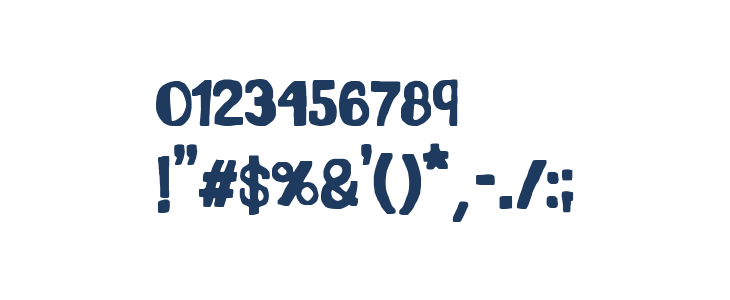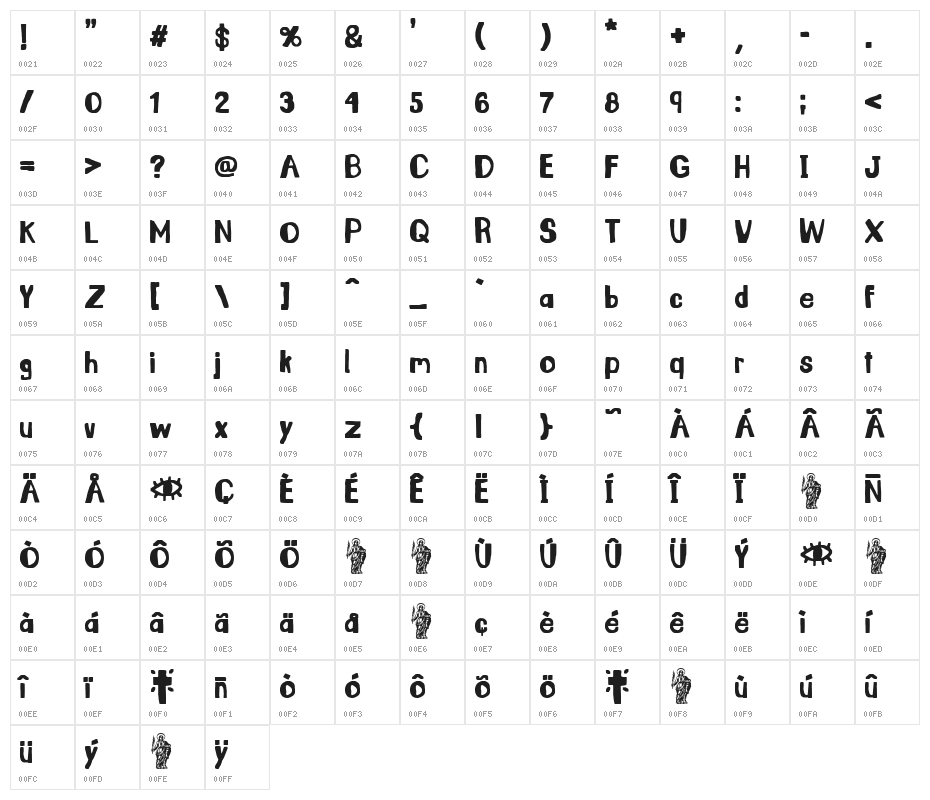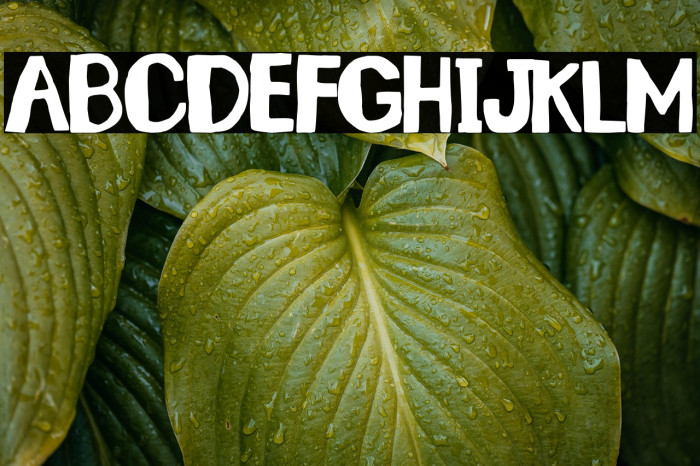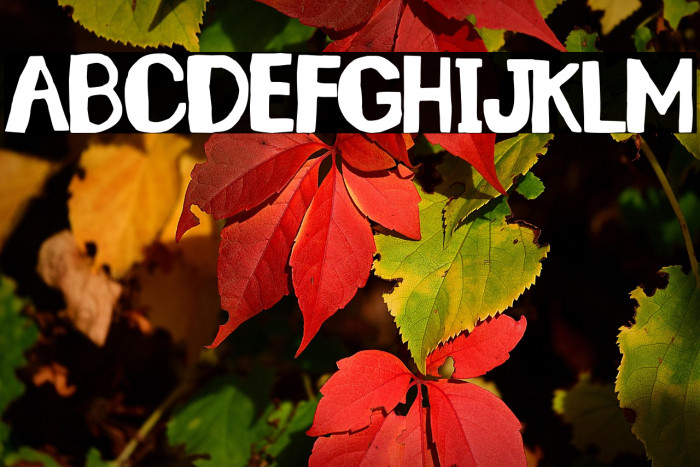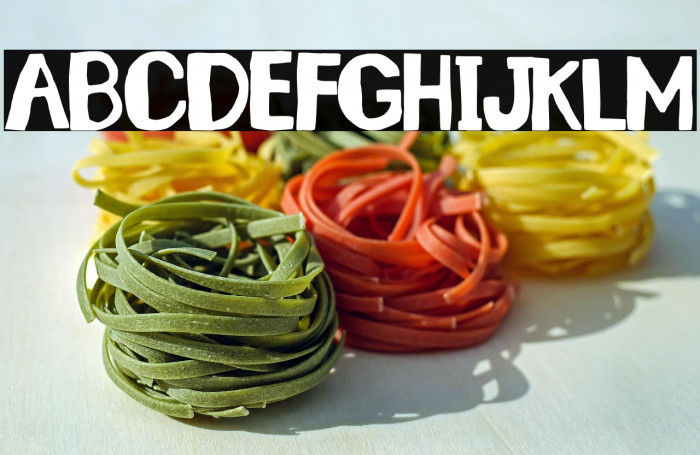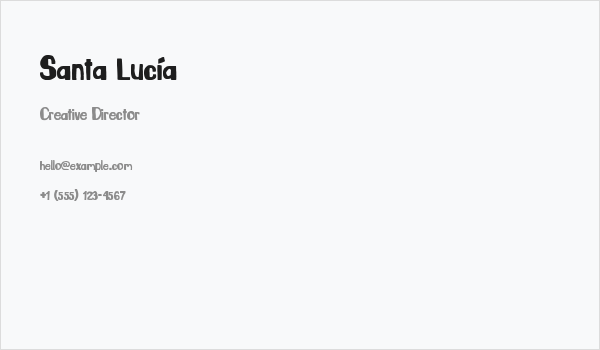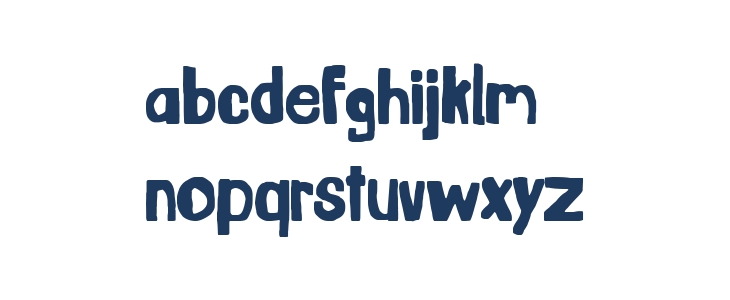
Santa Lucía Font
Santa Lucía Description
This font features a playful and bold design with a hand-drawn aesthetic. The characters are slightly irregular, giving it a whimsical and informal feel. The uppercase letters are robust and prominent, while the lowercase letters maintain a consistent style with a touch of quirkiness. Numbers and special characters follow the same playful theme, making it suitable for creative and fun projects. The overall appearance is casual and approachable, ideal for designs that aim to convey a sense of fun and creativity.
| Overall Style | Playful, Whimsical, Informal |